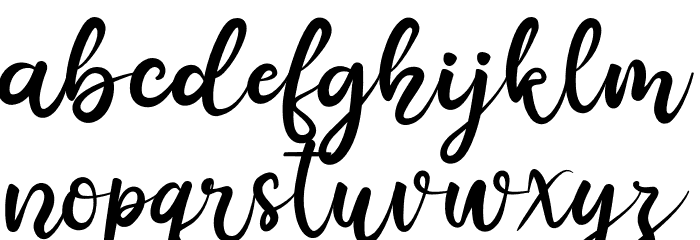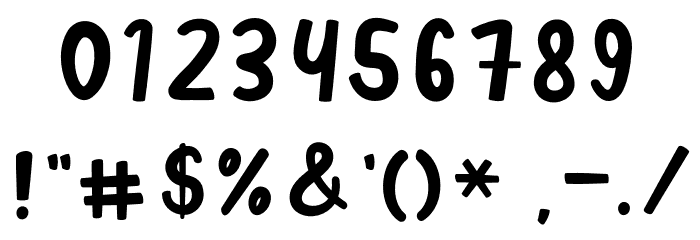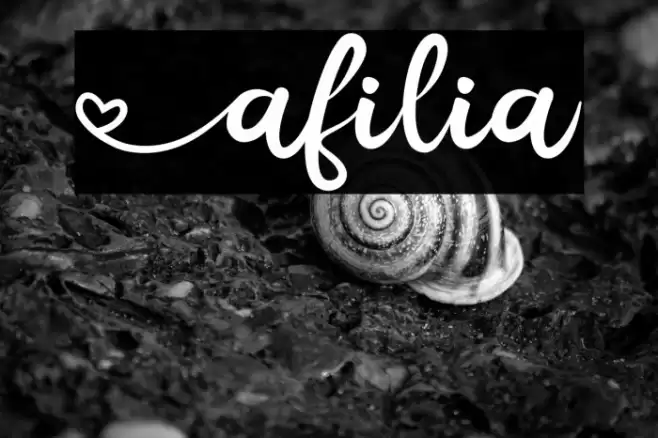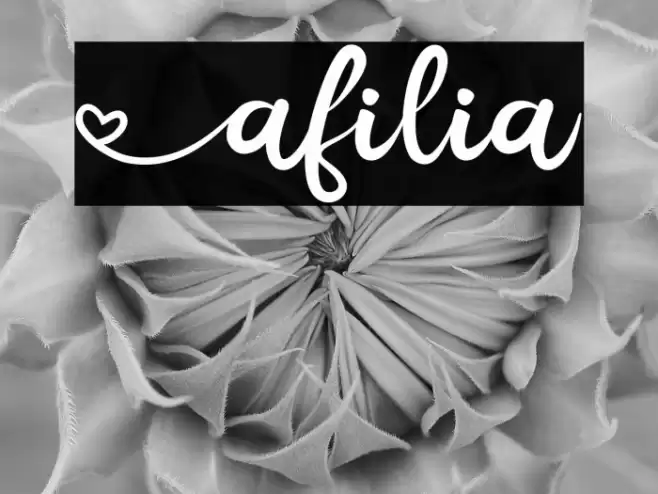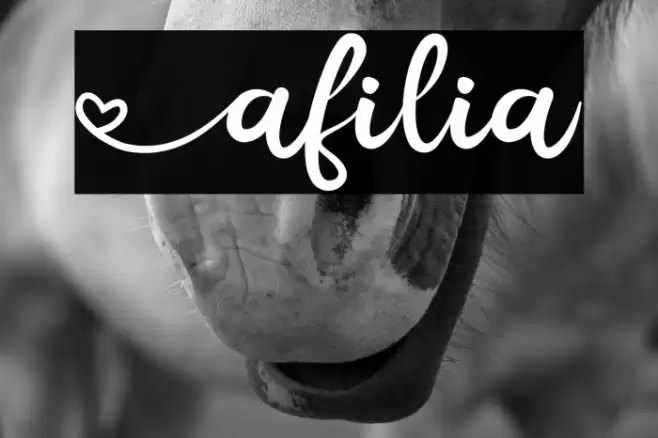
Afilia Font
This font features a charming and playful script style with a handwritten appearance. The uppercase letters are bold and flowing, while the lowercase letters exhibit a more delicate and whimsical touch, often connecting with each other. The numbers are rounded and maintain a consistent weight, complementing the overall aesthetic. Special characters are creatively designed, adding to the font's unique personality. The font's strokes are smooth and fluid, with a medium contrast that enhances readability while maintaining its decorative appeal.
A playful and whimsical script font with a handwritten style.